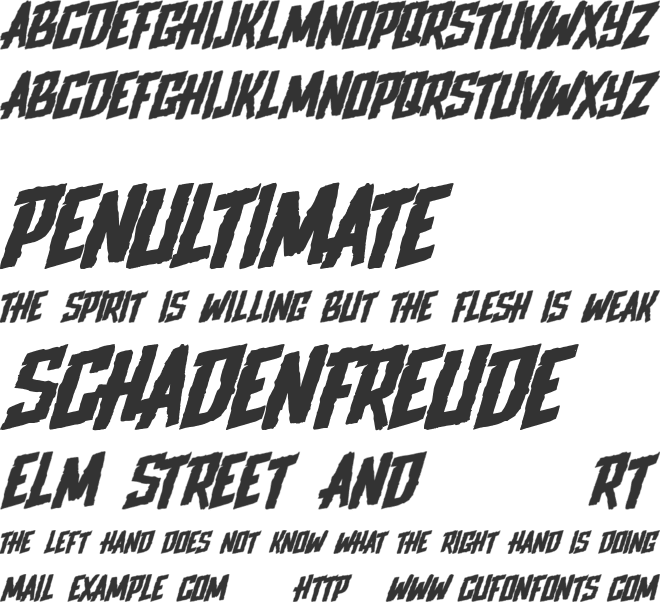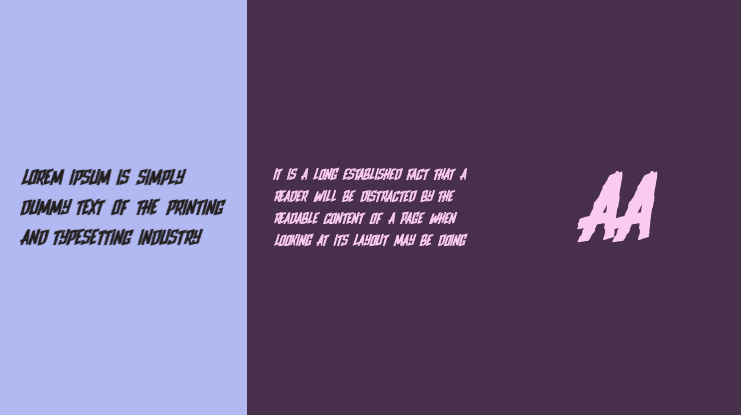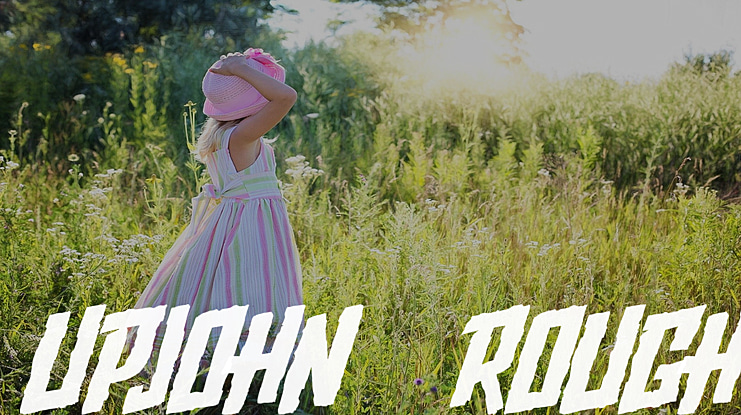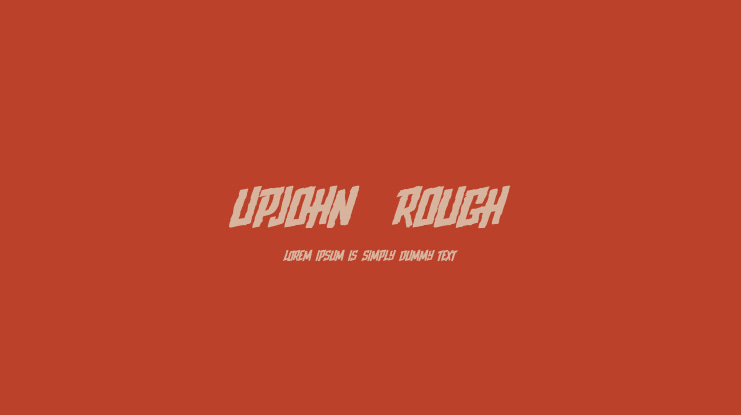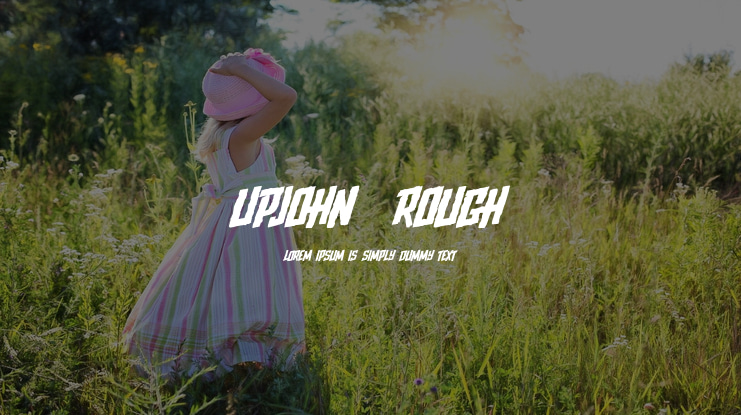
Upjohn Rough Font
Inspired from Horror and Thriller movie posters back in old era, with bold and solid stroke styles that pointed to the instant-retro feels when you drop it to your vintage or retro design project
Comes with 2 version, Clean and Rough with Uppercase, Numbers and Punctuations. Support English language, OTF and TTF files